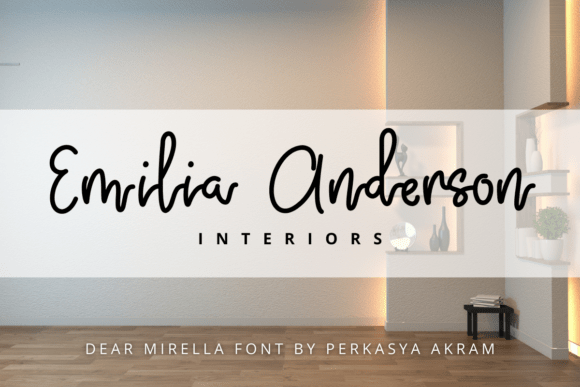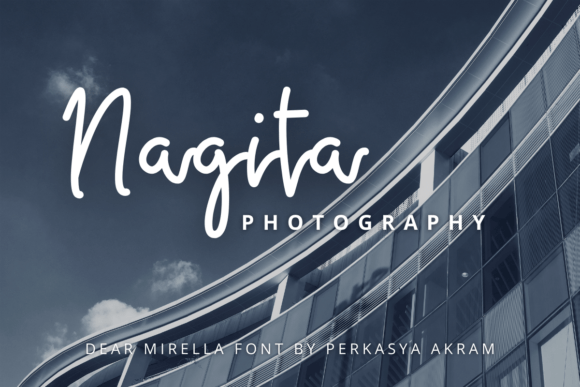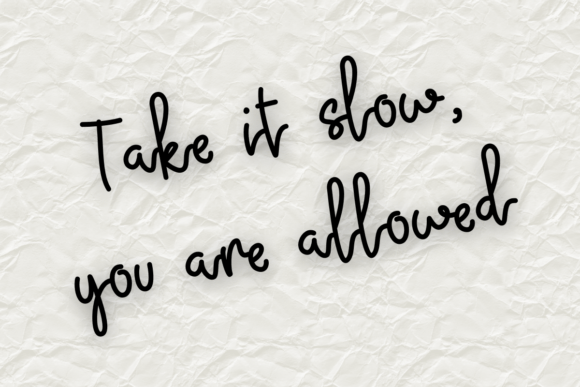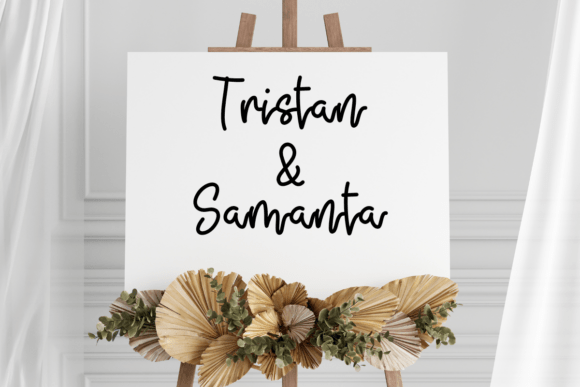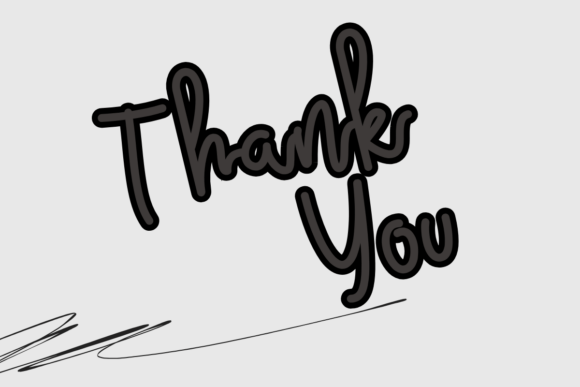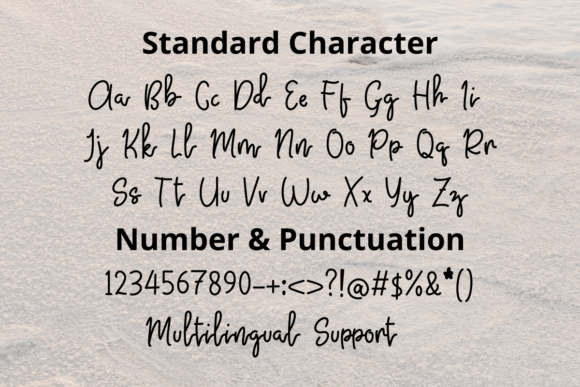
Discover the Charm of Dear Mirella Font: A Typographic Embrace
Dear Mirella font is the typographic equivalent of a warm cup of coffee on a rainy afternoon—intimate, cozy, and deeply personal. This exquisite typeface features a delicate, upright script style with soft loops and a natural, rhythmic flow that mimics authentic handwriting. It’s the perfect addition to any design project that requires a touch of elegance and sophistication.
The Essence of Dear Mirella Font
Dear Mirella is more than just a font; it’s an experience. Its delicate, cursive letters seem to dance across the page, bringing a sense of quiet sophistication and human connection to digital spaces. This typeface is ideal for wedding “save the dates,” lifestyle blog headers, and elegant “thank you” notes. The fluid, organic feel of Dear Mirella makes it perfect for designs that require a personal touch.
Perfect Applications for Dear Mirella Font
Dear Mirella font works beautifully for a variety of design projects, including:
- Journals and diaries: Add a personal touch to your journal or diary with Dear Mirella’s elegant script.
- Quote designs and social media posts: Share your favorite quotes or thoughts with a touch of sophistication.
- Personal branding and small businesses: Create a unique brand identity with Dear Mirella’s distinctive style.
- Greeting cards, letters, and stationery: Add a touch of elegance to your correspondence.
- Poetry books and reflective layouts: Bring a sense of calm and serenity to your poetry or reflective designs.
Design Tips for Using Dear Mirella Font
To get the most out of Dear Mirella font, pair it with minimalist photography and a muted, neutral color palette. This will create a brand identity that feels curated, gentle, and timelessly beautiful. The subtle, understated nature of Dear Mirella makes it an excellent choice for designers and crafters looking to add a touch of sophistication to their work.
The Benefits of Dear Mirella Font
Dear Mirella font offers several benefits, including:
- Emotional connection: Dear Mirella’s personal and intimate feel helps create an emotional connection with your audience.
- Versatility: This typeface is suitable for a wide range of design projects, from wedding stationery to poetry books.
- Timeless beauty: Dear Mirella’s classic, elegant style ensures that your designs will remain beautiful for years to come.
Why Choose Dear Mirella Font?
Dear Mirella font is not meant to shout — it speaks softly, making it ideal for calm, emotional, and minimalist designs. If you’re looking for a typeface that will add a touch of elegance and sophistication to your work, Dear Mirella is the perfect choice. Its unique blend of intimacy and refinement makes it an excellent addition to any design project.
In conclusion, Dear Mirella font is a beautiful, elegant typeface that brings a sense of quiet sophistication and human connection to digital spaces. Its delicate, upright script style and soft loops make it perfect for a wide range of design projects, from wedding stationery to poetry books. With its timeless beauty and versatility, Dear Mirella font is an excellent choice for designers and crafters looking to add a touch of elegance to their work.